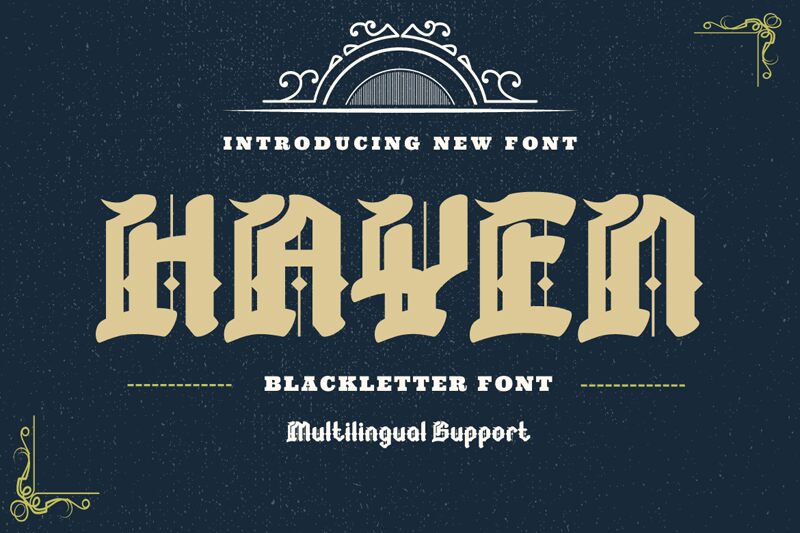
HAYEN-Regular
Hayen, a bold and modern gothic font by Twinletter, pays homage to blackletter styles with a contemporary twist. Its intricate details and strong lines make it perfect for projects that demand an edgy and timeless aesthetic.
From album covers to tattoo designs, Hayen adds an air of mystique and sophistication. Bring your brand identity to life with this captivating font, suitable for logo designs, movie titles, or even website headers.
Embrace the allure of Hayen and let its boldness elevate your creative endeavors.